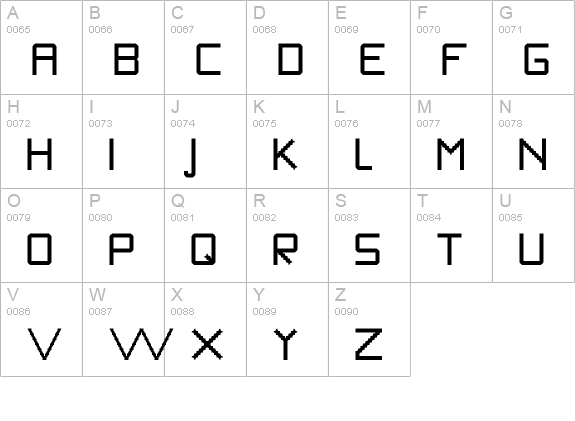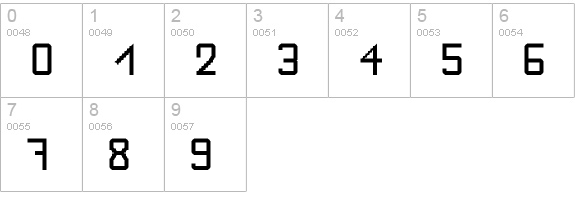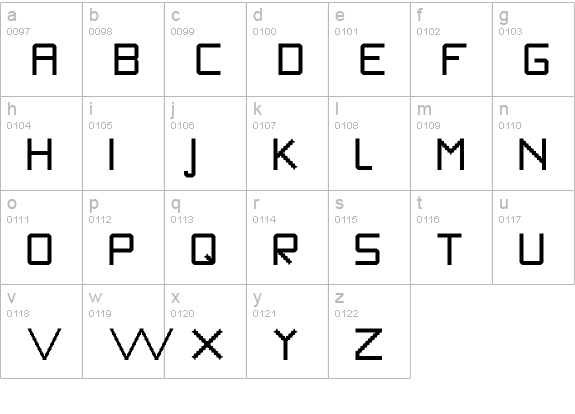
WLM Nova Sans Bold Regular Font Details
WLM Nova Sans Bold Regular is a strong, high-contrast variant in the WLM typeface family \xE2\x80\x94 well suited to headlines, attention-grabbing titles, and strong calls-to-action.
WLM Nova Sans Bold Regular is a versatile and striking font that exudes modernity and professionalism. With its bold and strong appearance, this font is perfect for making a bold statement in any design project. Whether you're designing a logo, creating eye-catching headlines, or crafting attention-grabbing posters, WLM Nova Sans Bold Regular is sure to leave a lasting impression. This font features clean lines and well-defined letterforms, making it highly readable and legible even at smaller sizes. Its balanced proportions and consistent stroke widths contribute to its overall aesthetic appeal, ensuring a harmonious and cohesive look across all design elements. One of the best aspects of WLM Nova Sans Bold Regular is that it is freely available to download at FontsMarket.com. This means that you can easily access this font and incorporate it into your projects without any hassle. Whether you're a professional designer or a casual enthusiast, this freely accessible font allows you to unleash your creativity and elevate your designs to the next level. With WLM Nova Sans Bold Regular, you have the freedom to experiment with various design styles and layouts. Its bold and confident presence can add a touch of sophistication and elegance to any project, while its versatility makes it suitable for a wide range of design applications. Overall, WLM Nova Sans Bold Regular is a powerful font that combines modernity, professionalism, and accessibility. With its bold and striking appearance and its availability for free download at FontsMarket.com, this font is a must-have for any designer looking to make a bold statement and captivate their audience.